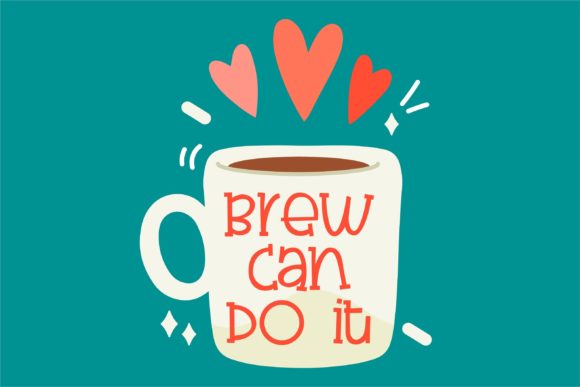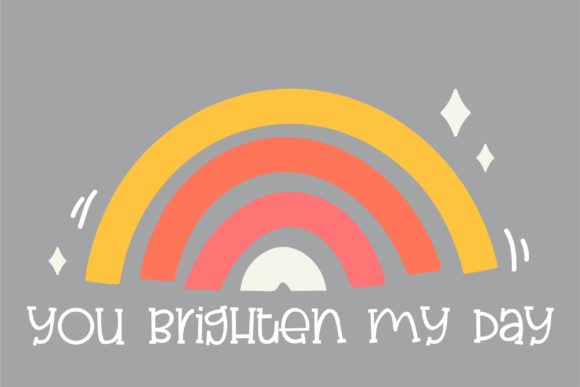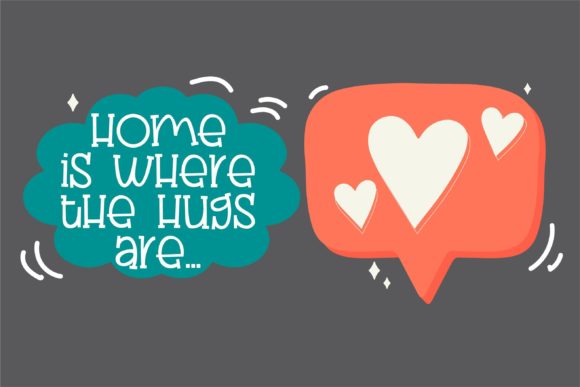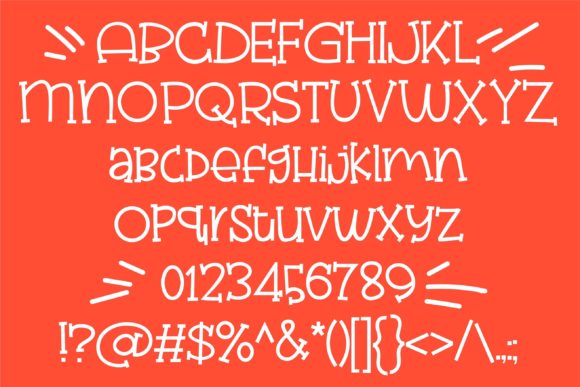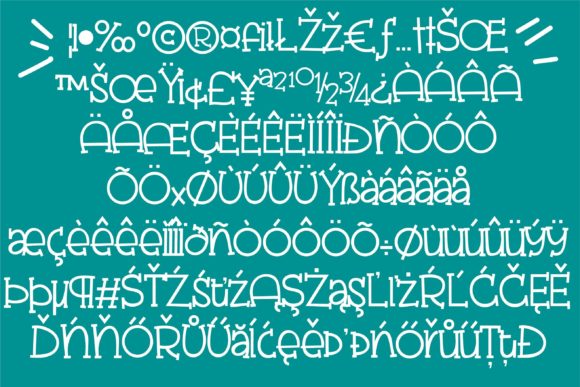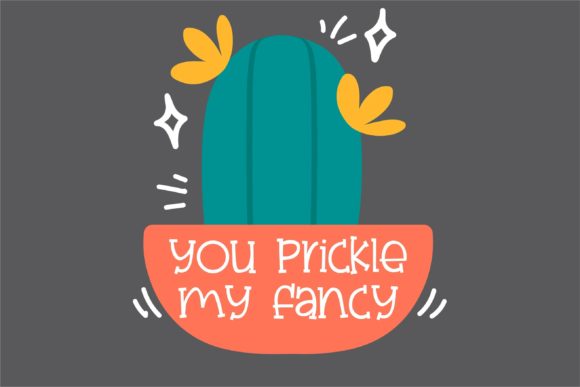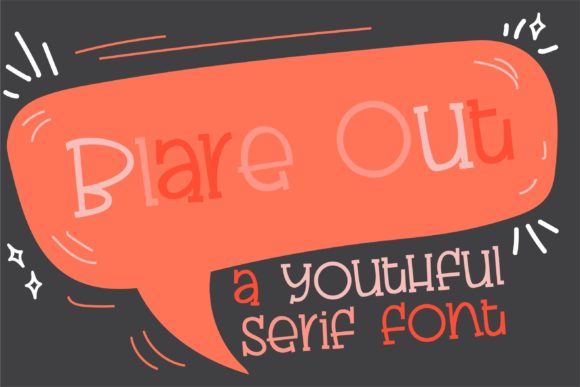
Introducing Blare Out Font: Elevate Your Creativity with this Chic Handwritten Style
Are you a designer, crafter, or DIY enthusiast looking for a unique and stylish font to take your creative projects to the next level? Look no further than Blare Out, a chic and quirky handwritten font that’s perfect for Instagram, calligraphy scripts, and a wide range of artistic endeavors. In this article, we’ll dive into the world of Blare Out, exploring its features, benefits, and the many ways you can use it to turn your creative ideas into stunning works of art.
The Story Behind Blare Out
Blare Out is a carefully crafted handwritten font that exudes a sense of playfulness and sophistication. Its quirky, irregular strokes and charming letterforms make it an instant standout in any design or project. Whether you’re a seasoned designer or a crafty DIY enthusiast, Blare Out is sure to inspire your creativity and add a touch of personality to your work.
Key Features of Blare Out
- Handwritten style: Blare Out boasts a beautiful, handwritten aesthetic that’s perfect for adding a personal touch to your designs.
- Quirky and playful: This font’s irregular strokes and charming letterforms give it a unique, eye-catching quality that’s sure to grab attention.
- Versatile: Blare Out is suitable for a wide range of creative projects, from Instagram graphics and calligraphy scripts to DIY crafts and more.
- Easy to use: With its clean and simple design, Blare Out is easy to read and work with, making it perfect for designers and crafters of all skill levels.
Using Blare Out for Instagram and Social Media
In today’s digital age, having a strong online presence is crucial for designers, crafters, and DIY enthusiasts. With Blare Out, you can elevate your Instagram game and create stunning graphics that showcase your creativity and style. Use Blare Out to:
- Create eye-catching captions and quotes that grab attention and inspire engagement.
- Design beautiful Instagram stories and posts that showcase your artistic talents.
- Develop a consistent brand aesthetic that sets you apart from the crowd.
Using Blare Out for Calligraphy and DIY Projects
Blare Out is more than just a digital font – it’s also a versatile tool for calligraphy and DIY projects. Use it to:
- Create beautiful hand-lettered quotes and phrases for wall art, cards, and gifts.
- Add a personal touch to your journaling and scrapbooking projects.
- Design stunning DIY crafts, such as customized mugs, t-shirts, and more.
Tips and Tricks for Working with Blare Out
To get the most out of Blare Out, here are a few tips and tricks to keep in mind:
- Experiment with different colors and textures: Blare Out looks great in a variety of colors and textures, so don’t be afraid to get creative and try new things.
- Mix and match with other fonts: Combine Blare Out with other fonts to create unique and interesting visual effects.
- Pay attention to spacing and kerning: To ensure your text looks its best, make sure to adjust the spacing and kerning to suit your design.
Blare Out is a truly unique and versatile font that’s perfect for designers, crafters, and DIY enthusiasts. With its chic and quirky handwritten style, it’s the perfect tool for adding a personal touch to your creative projects. Whether you’re looking to elevate your Instagram game, create stunning calligraphy scripts, or simply add a touch of personality to your DIY crafts, Blare Out is the perfect choice. So why wait? Download Blare Out today and start turning your creative ideas into stunning works of art!